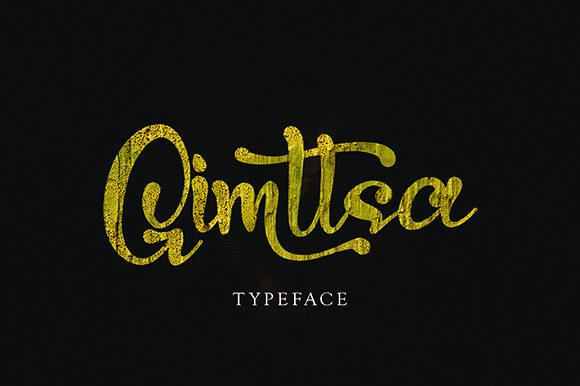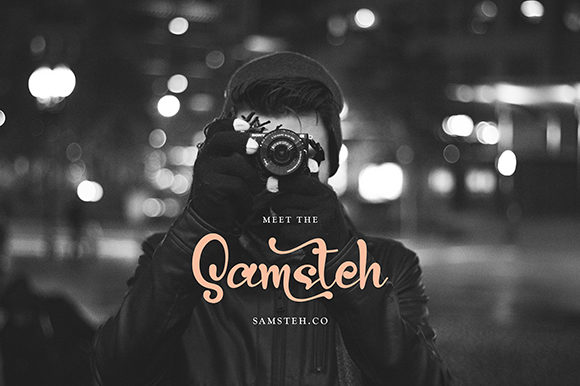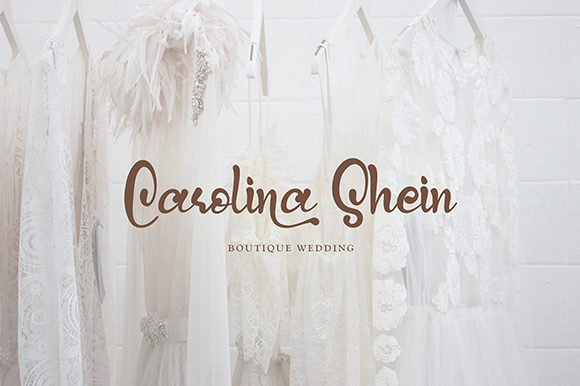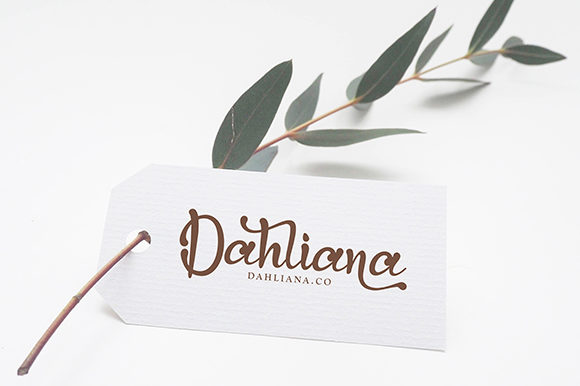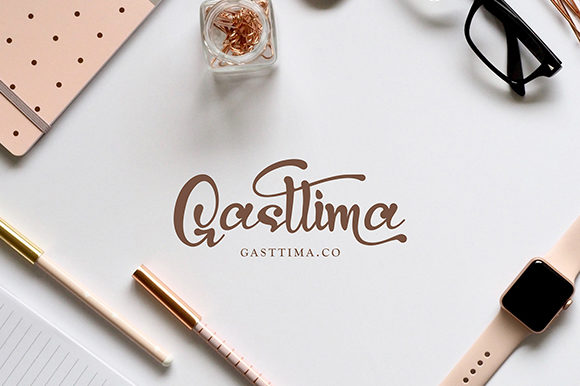
HomeScript FontsGimttsa Font Script Fonts Gimttsa Font FacebookXPinterestWhatsApp Gimttsa Font Poster 2 Gimttsa Font Poster 3 Gimttsa Font Poster 4 Gimttsa Font Poster 5 About Gimttsa Font Gimttsa is a unique and beautiful script font with authentic characters. Fall in love with its playful swashes! DOWNLOAD ON CREATIVE FABRICAThis font is sold and delivered by Creative Fabrica. Font Canyon may earn a commission if you buy through this link. People also explored Western Culture Font Mallongia Font Butter Factory Font Lucky Font Lovely Belive Font Orangano Font Diamonda Font Watusi Bathine Font 290 0 TagsGimttsa Font Previous articleCalifornia FontNext articleShaittaqur Font LEAVE A REPLY Cancel reply Comment: Please enter your comment! Name:* Please enter your name here Email:* You have entered an incorrect email address! Please enter your email address here Website: Save my name, email, and website in this browser for the next time I comment. Personal Use Free Eric”s Personal Use Free Read more about this font Rhetorical Personal Use Free Read more about this font Bridgetown Font Personal Use Free Read more about this font Styledeep Personal Use Free Read more about this font BLOG To increase your work productivity, choose the most readable fonts. In today's fast-paced work environment, where digital communication and information consumption are integral to our daily routines, the choice of fonts can significantly impact... Fonts That Capture the Spirit of New York City Best Fonts for T-Shirt Design – Top 2025 Picks How to Cut Any Font on Cricut: Convert a Font to SVG (Free)